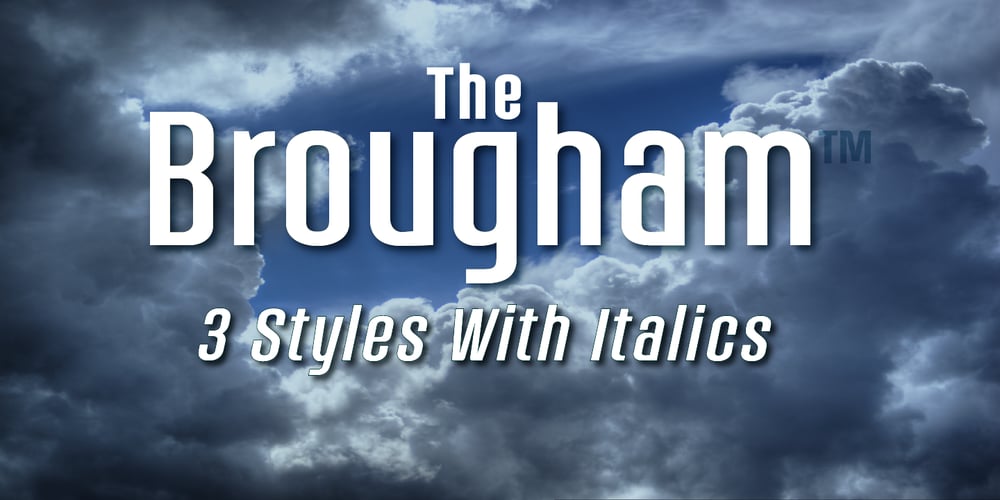
Brougham
Brougham font
Brougham Font Family was designed by John Nahmias and published by Jonahfonts. Brougham contains 7 styles and family package options. Brougham keeps its legibility with a strong presence.Usage recommendations: Captions, packaging, cards, posters, ads, book jackets and manuals.